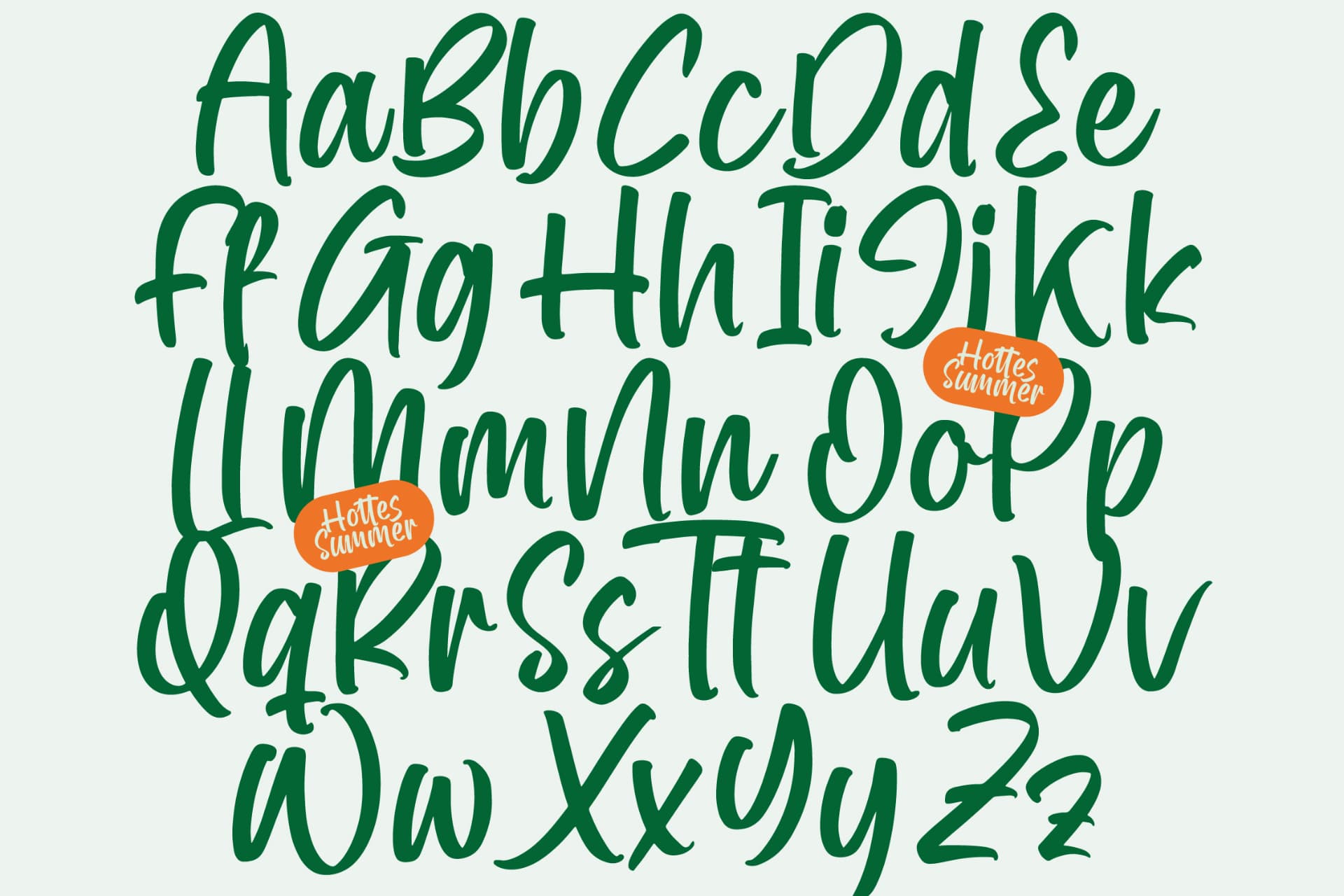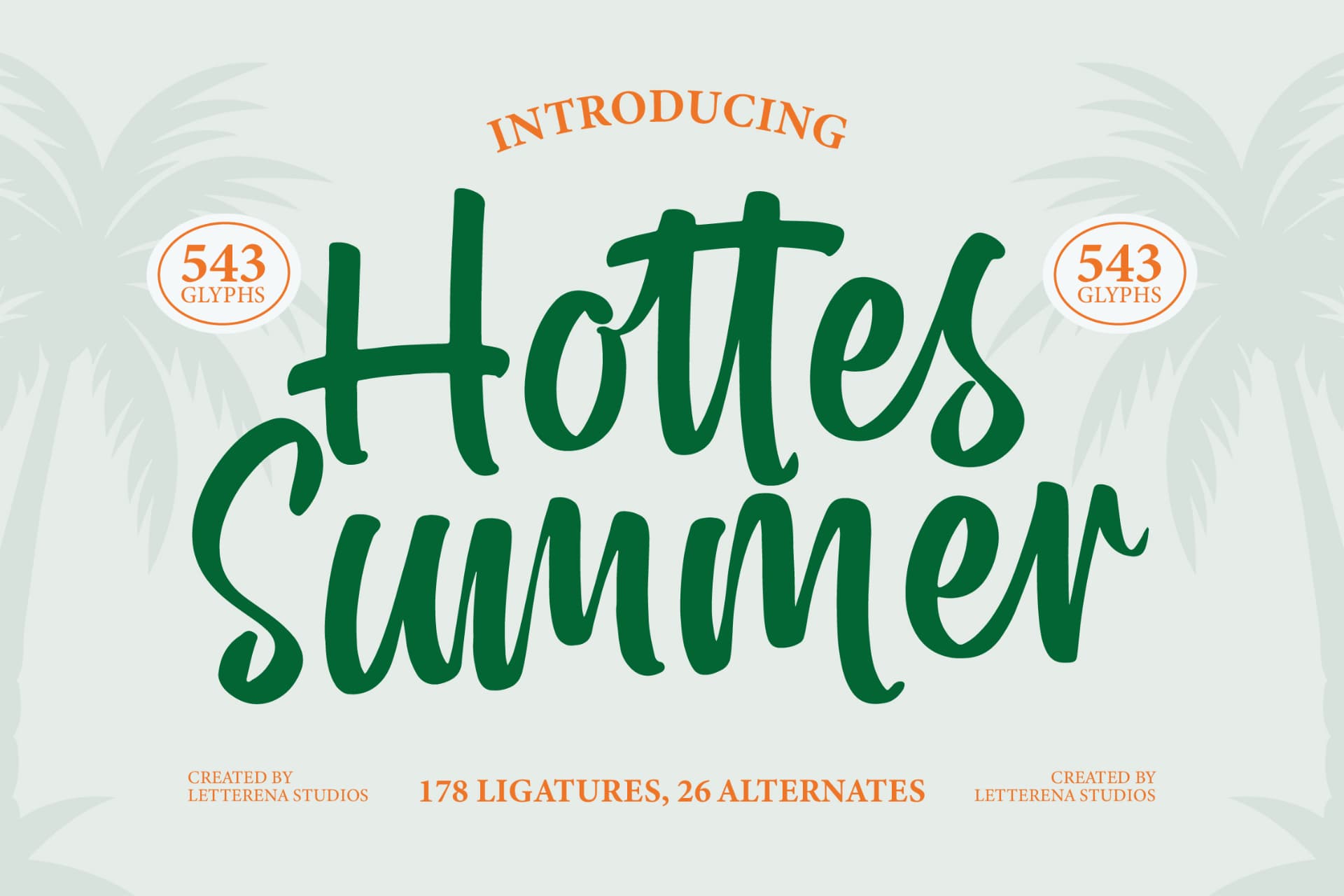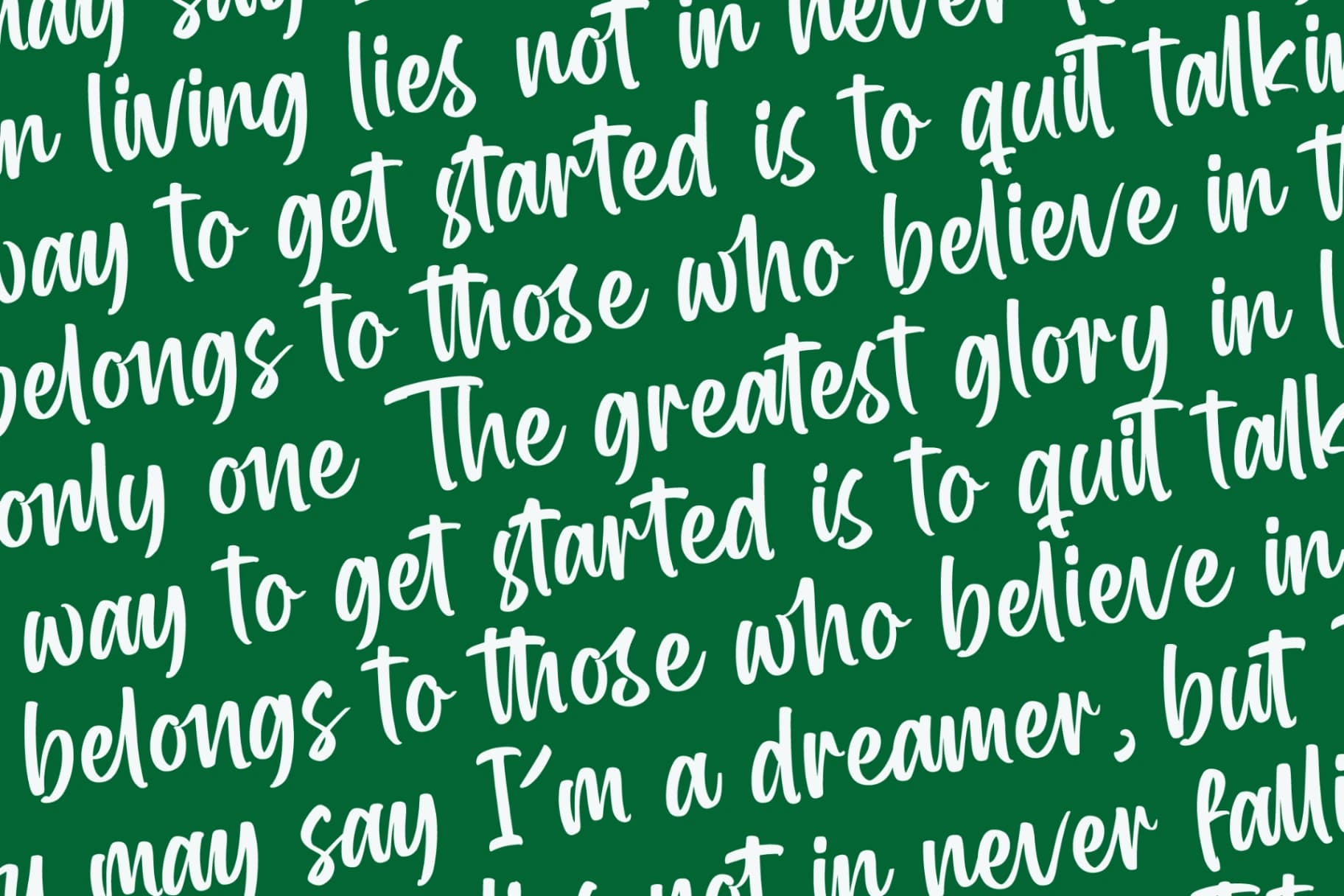
Hottes Summer – Modern Script Font
Elevate your designs with the captivating charm of Hottes Summer – Modern Script Font. This exquisite modern script typeface effortlessly blends a natural, handcrafted feel with a polished, contemporary aesthetic. Its flowing connections and inviting curves evoke a sense of warmth and genuine personality, making every word resonate with an approachable elegance. Perfect for creating an immediate, memorable impact that truly stands out.
Unleash unparalleled creative potential with Hottes Summer – Modern Script Font, meticulously crafted to offer designers maximum flexibility. Boasting an impressive 543 glyphs, 178 ligatures, and 26 alternates, this font provides a rich tapestry of stylistic options. These extensive features enable truly dynamic design, ensuring each textual element possesses unique character and authenticity, elevating your visual narratives with bespoke finesse.
Designed for a truly global audience, Hottes Summer – Modern Script Font transcends linguistic barriers with ease. With its extensive multilingual support, Hottes Summer – Modern Script Font adapts seamlessly across global markets, making it incredibly versatile for international projects. This crucial feature ensures your message retains its intended charm and professionalism, regardless of the language or region.
Discover the ultimate asset for diverse applications, where Hottes Summer – Modern Script Font truly shines. It is perfectly suited for expressive branding, captivating packaging, vibrant social media graphics, and unforgettable event invitations. Choose Hottes Summer – Modern Script Font to infuse your projects with an undeniable touch of joy and bespoke craftsmanship, guaranteeing an impactful and polished presentation.